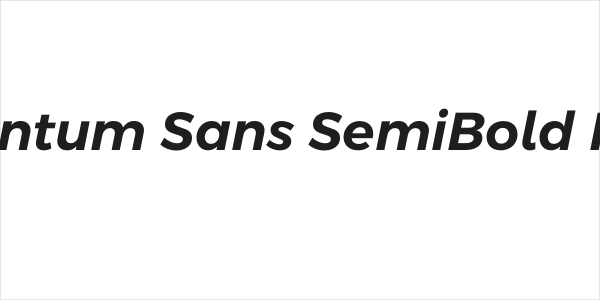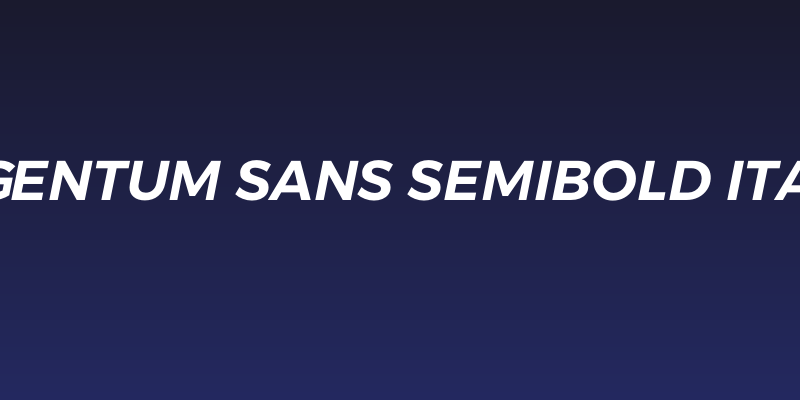
Argentum Sans SemiBold Italic Font
Argentum Sans SemiBold Italic Description
This typeface features a sleek and modern design with a semi-bold weight, providing a strong yet elegant appearance. The italic style adds a dynamic and forward-leaning aspect, making it suitable for contemporary design projects. The characters are well-proportioned, with smooth curves and clean lines that enhance readability. The numerals and special characters maintain the same aesthetic, ensuring consistency across different uses. This font is versatile, offering a professional look that can be adapted to various contexts.